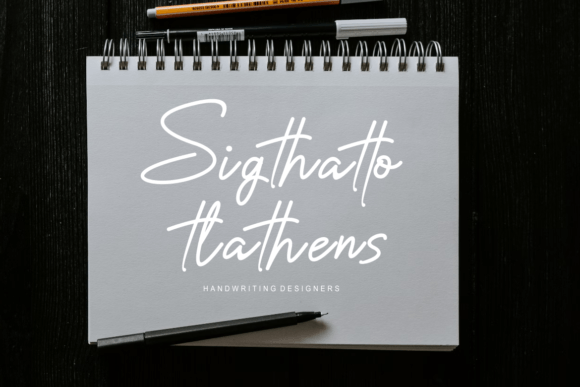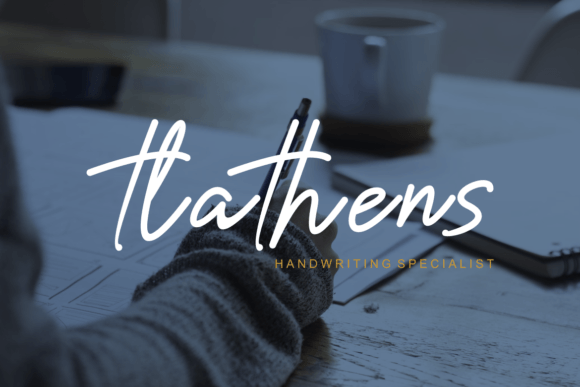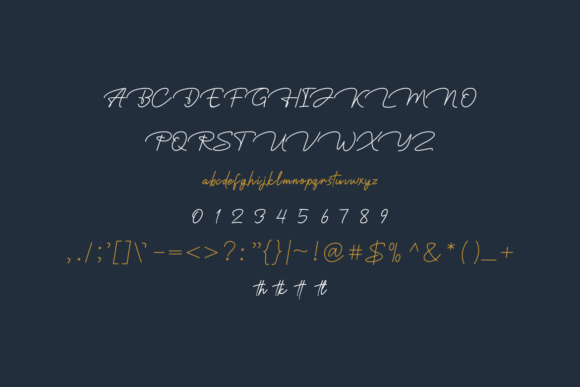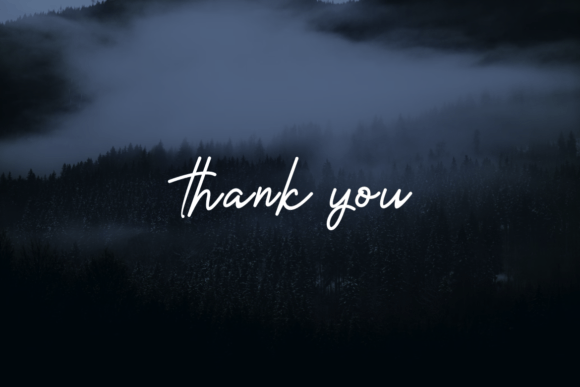
Introduction to Bathalott Font
IBathalott is a m odern signature script font.
It is suitable for any branding project like logo, cards, invitations, flyers, social media and so much more .
Bathalott Font offers exceptional quality and versatility, making it a valuable addition to your design toolkit. Whether you’re creating for personal projects or commercial use, Bathalott Font delivers professional results.